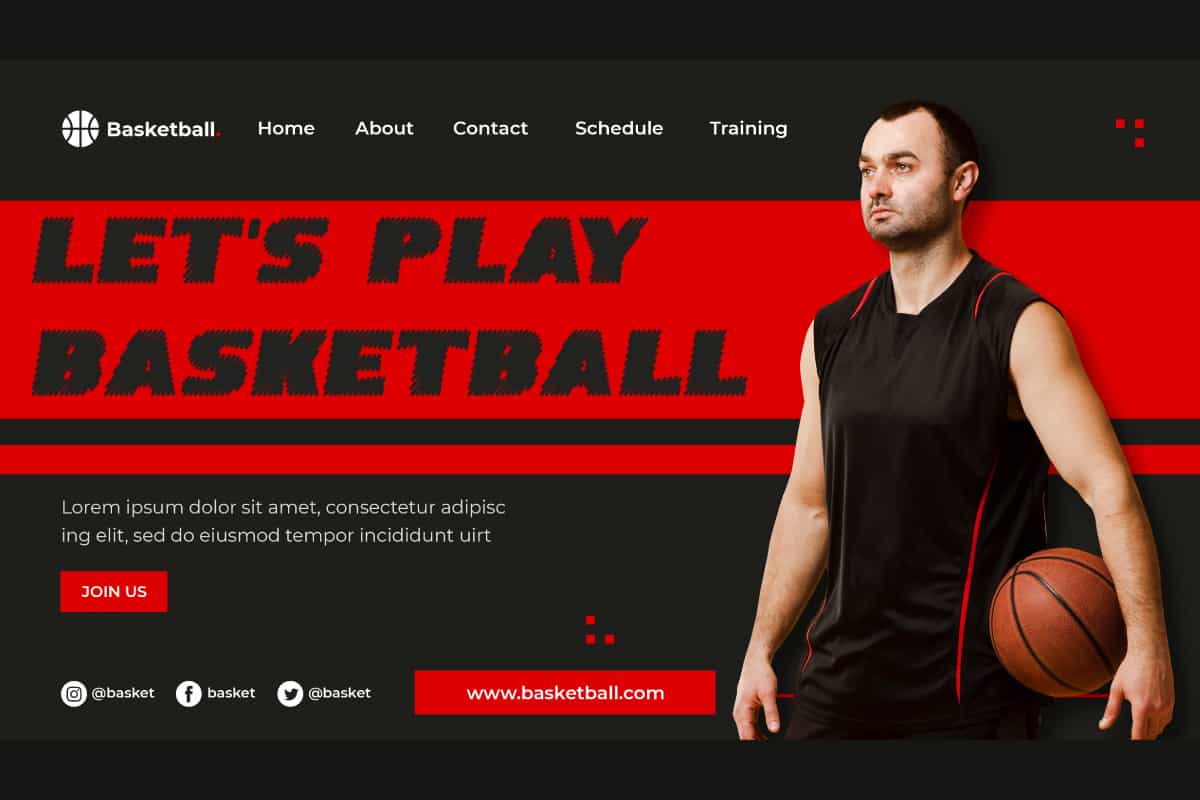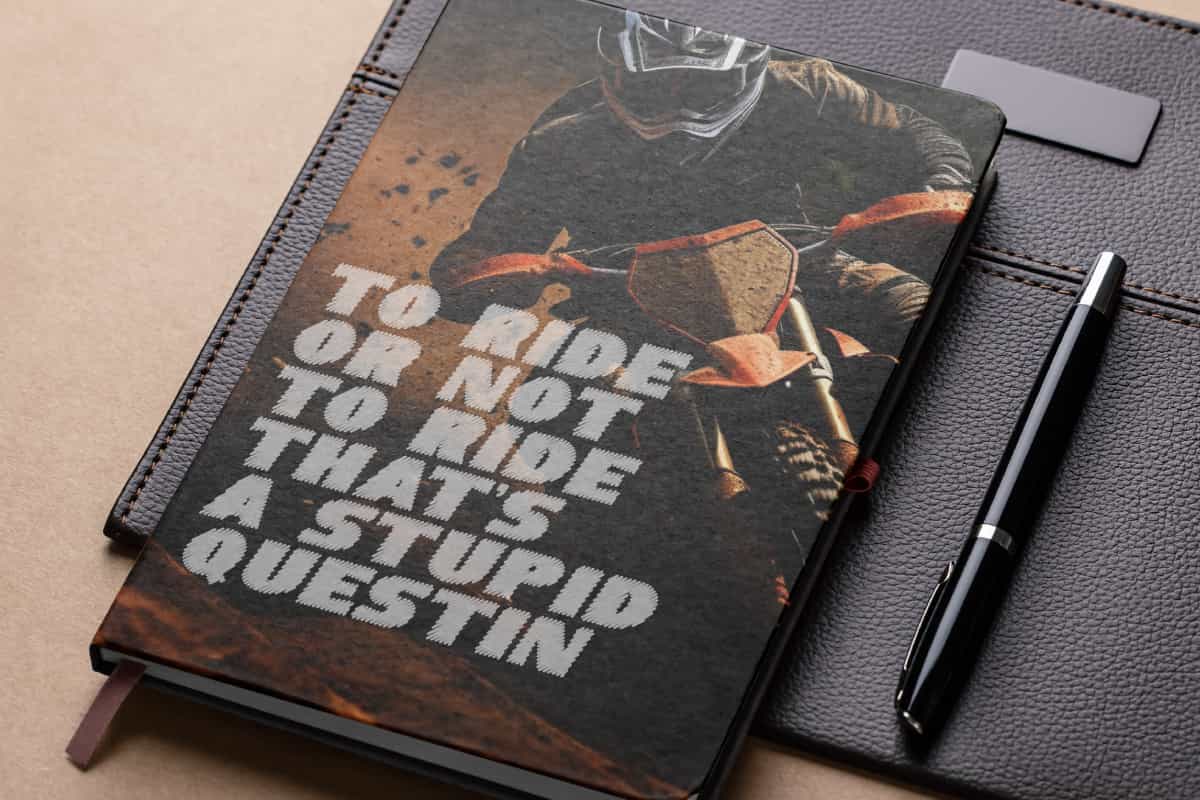
Racing Pack Display Font
Racing Pack Font is a sketched ornament decorative fun racing font with a unique and bold concept to make your design different from the others!
Racing Pack Font is a sketched ornament decorative fun racing font with a unique and bold concept to make your design different from the others!. This font's characters look like they were made with thin marker strokes, resulting in bold letters. It will be great for custom design, poster, label, signage, stationery, product packaging, quotes, brand image, advertisement, invitation, marketing material, website page, and more!
Introducing Racing Pack Display Font – a bold, fast, and dynamic typeface designed to bring speed and energy to your creative projects. Inspired by motorsport aesthetics, Racing Pack captures the thrill of competition with sharp angles, sleek curves, and powerful letterforms. Whether you’re working on sports branding, event posters, gaming graphics, or merchandise, this font is built to make your designs stand out in the fast lane.
Racing Pack Display Font is the perfect choice for projects that need a strong, competitive edge. Its modern style is ideal for racing logos, automotive campaigns, esports branding, and advertising that demands attention. With a high-impact design and excellent readability, Racing Pack delivers a professional look that works across both digital and print platforms.
Typography is a key element in building strong brand identity, and Racing Pack Display Font provides the perfect mix of energy, boldness, and modern style. It’s a must-have for designers, marketers, and business owners who want to capture the excitement of racing and speed in their projects.
Racing Pack Display Font includes a full set of ALL CAPS for Uppercase and Lowercase Letters, Numerals, and large range of Punctuation. This cool font will be suitable for various industries, such as sports, automotive, fashion, game, barber shop, cafe, event or festival, photography, printing, publishing, etc.